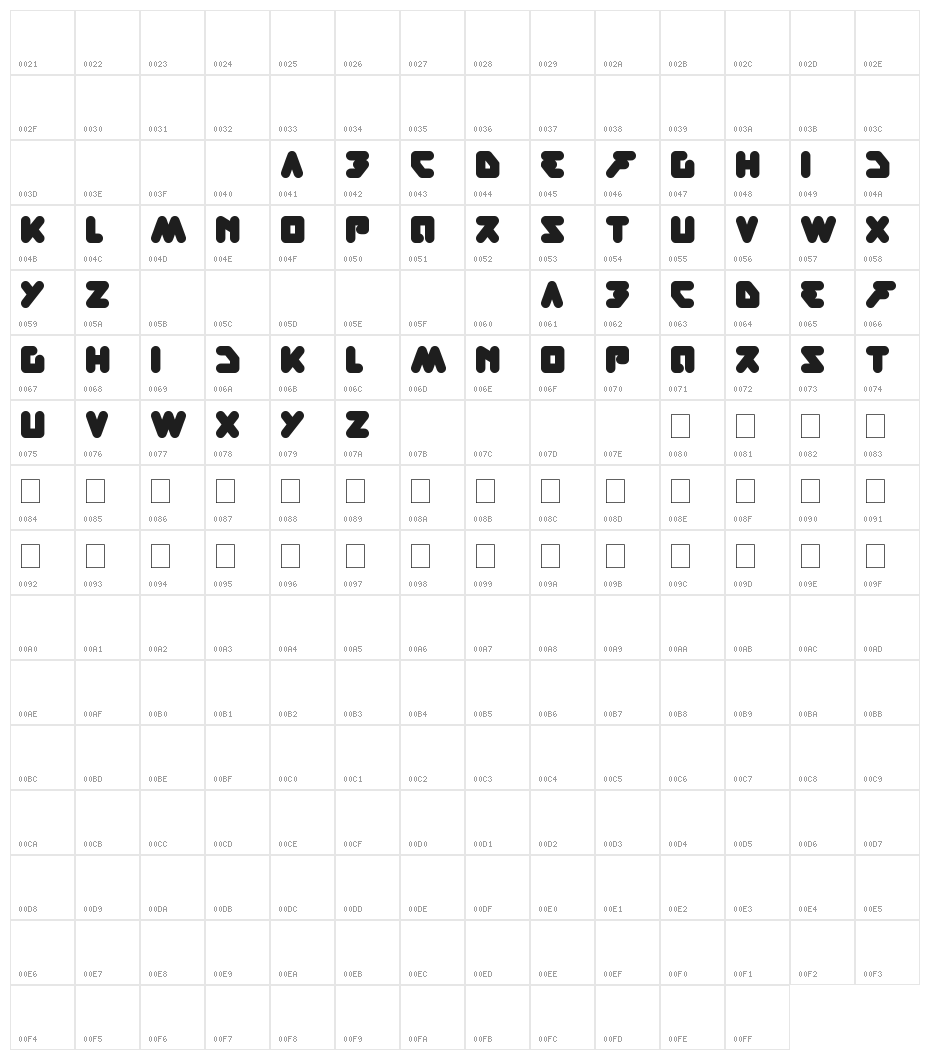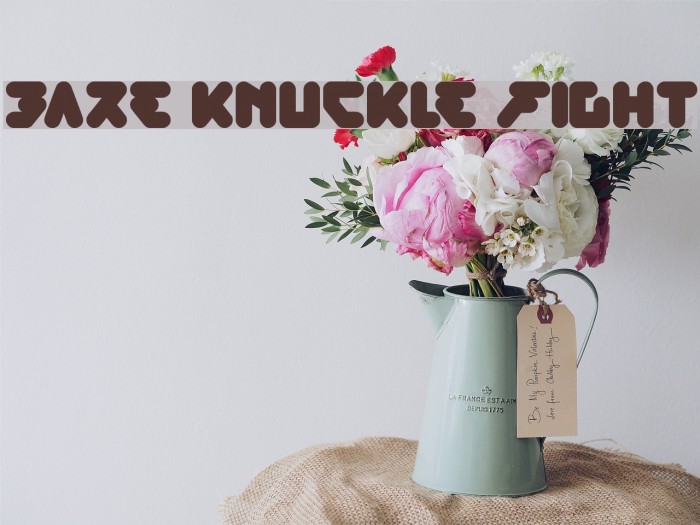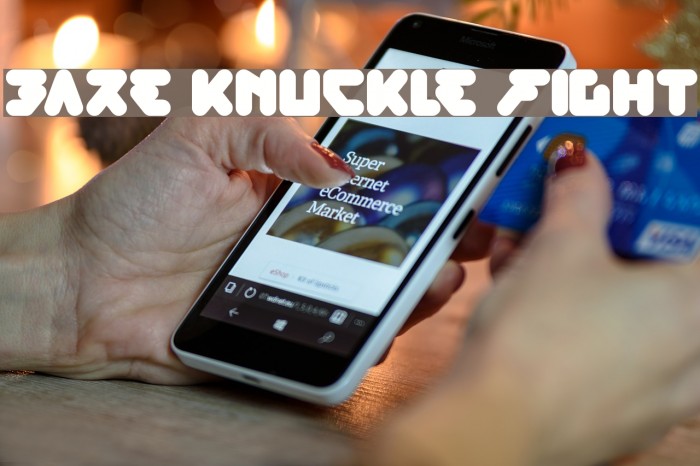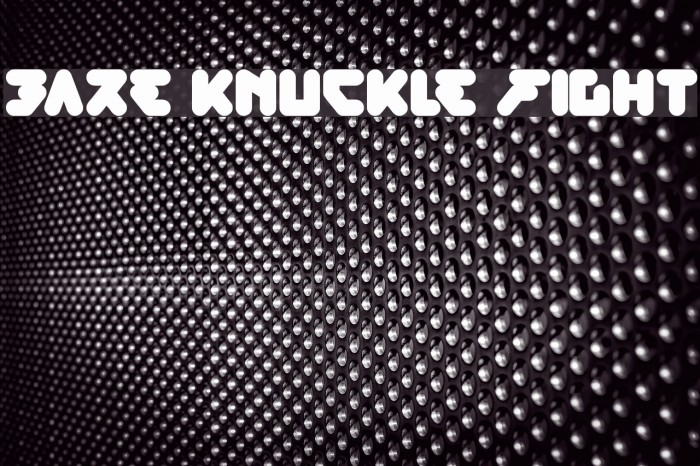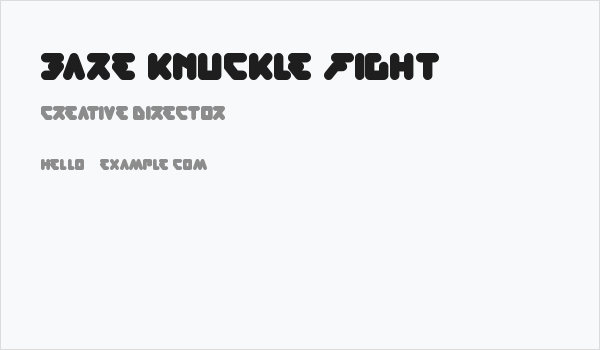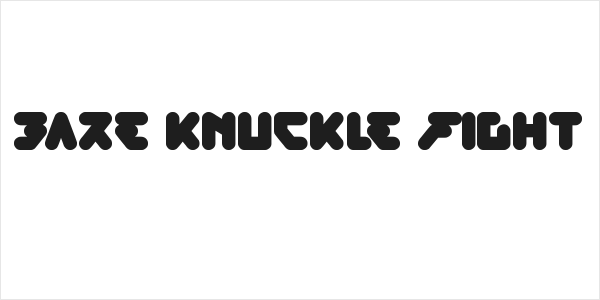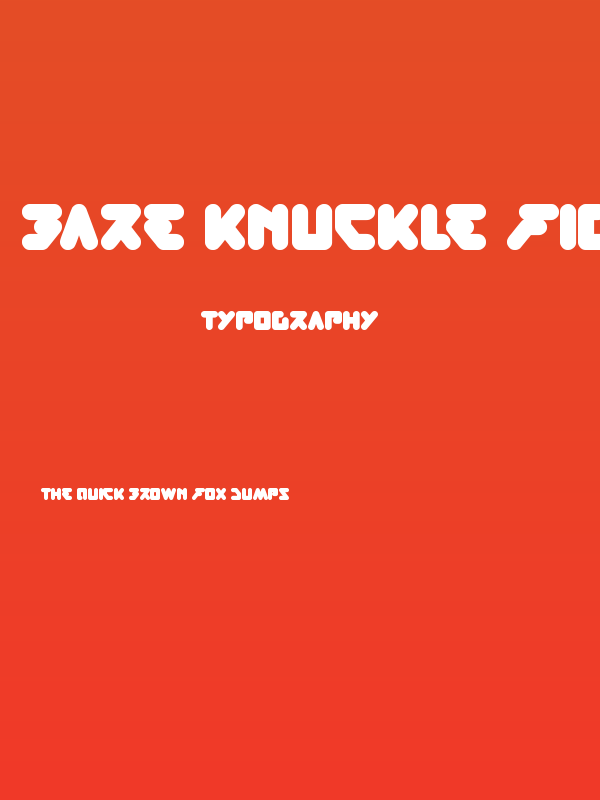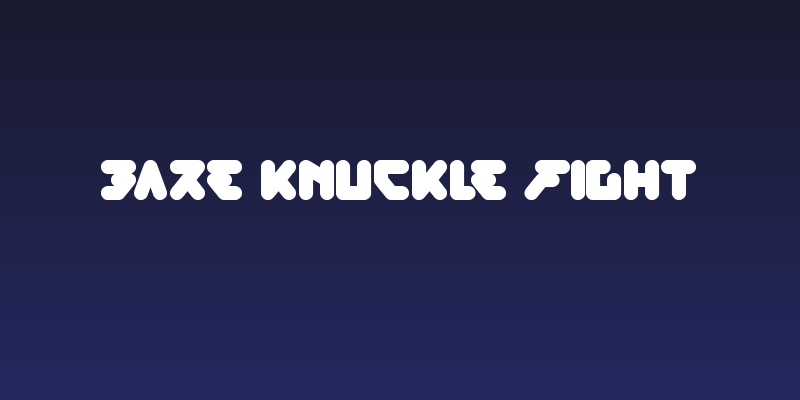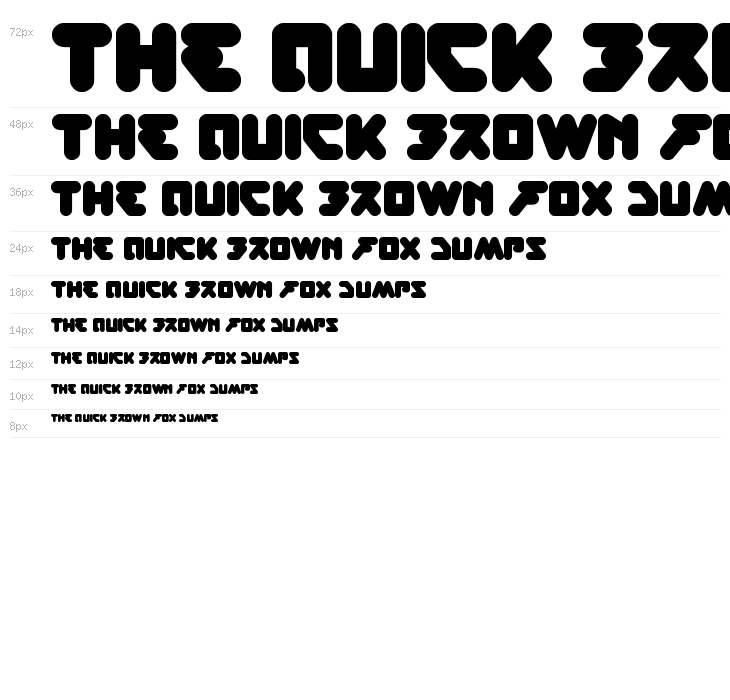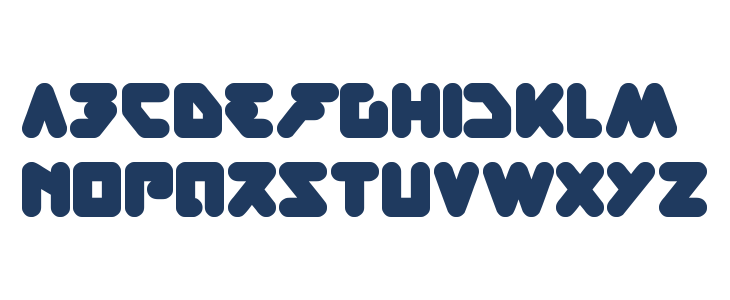
bare knuckle fight Font
bare knuckle fight Description
This font features a bold, geometric design with a distinctly modern and edgy appearance. The characters are constructed with thick, uniform strokes that create a strong visual impact. The angular shapes and sharp corners give it a futuristic and industrial feel, making it stand out in any design. The uppercase letters are consistent in height, and the overall structure is compact, contributing to its robust and solid look. This font is ideal for projects that require a bold statement and a contemporary aesthetic.
| Proposed Projects | Ideal for branding, posters, headlines, and any design needing a strong, modern impact. |